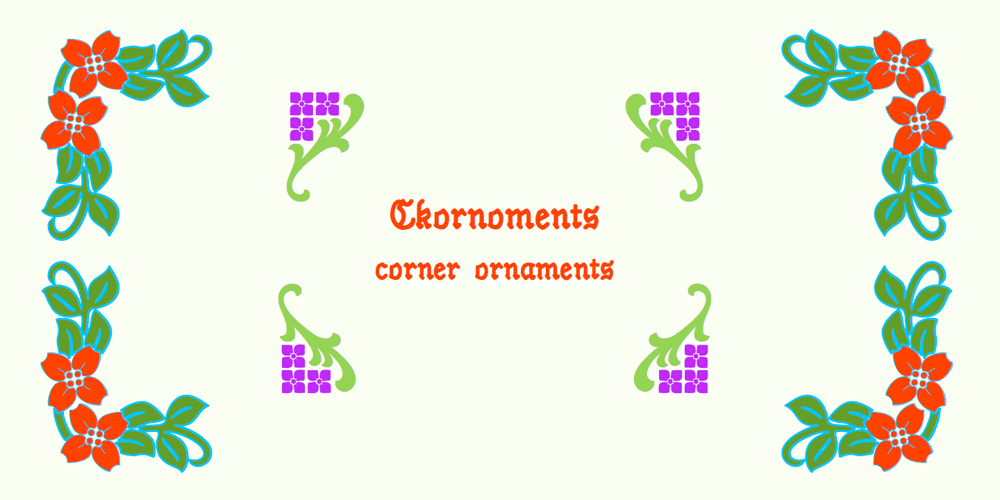
Ckornoments Font Family was designed by Robert Schenk and published by Ingrimayne Type. Ckornoments contains 2 styles and family package options. Ckornoments is a two-font family of corner ornaments that was inspired by decorative grave ornaments. Similar ornaments can be found on old furniture and woodwork. Almost all ornaments come in sets of four for placement top right and left and bottom right and left. The two fonts, solid and outline, are designed to be used in layers but can be used separately. In addition, ornaments that include flowers have one part of the design separated out so the original and separated characters can be layered to give bi-colored images (or tri-colored with an outline). These ornaments are suitable for posters, newsletters, personal notes, and on other types of documents that benefit from framing. In addition to serving as corners, the ornaments can also be used as dividers between sections of text.